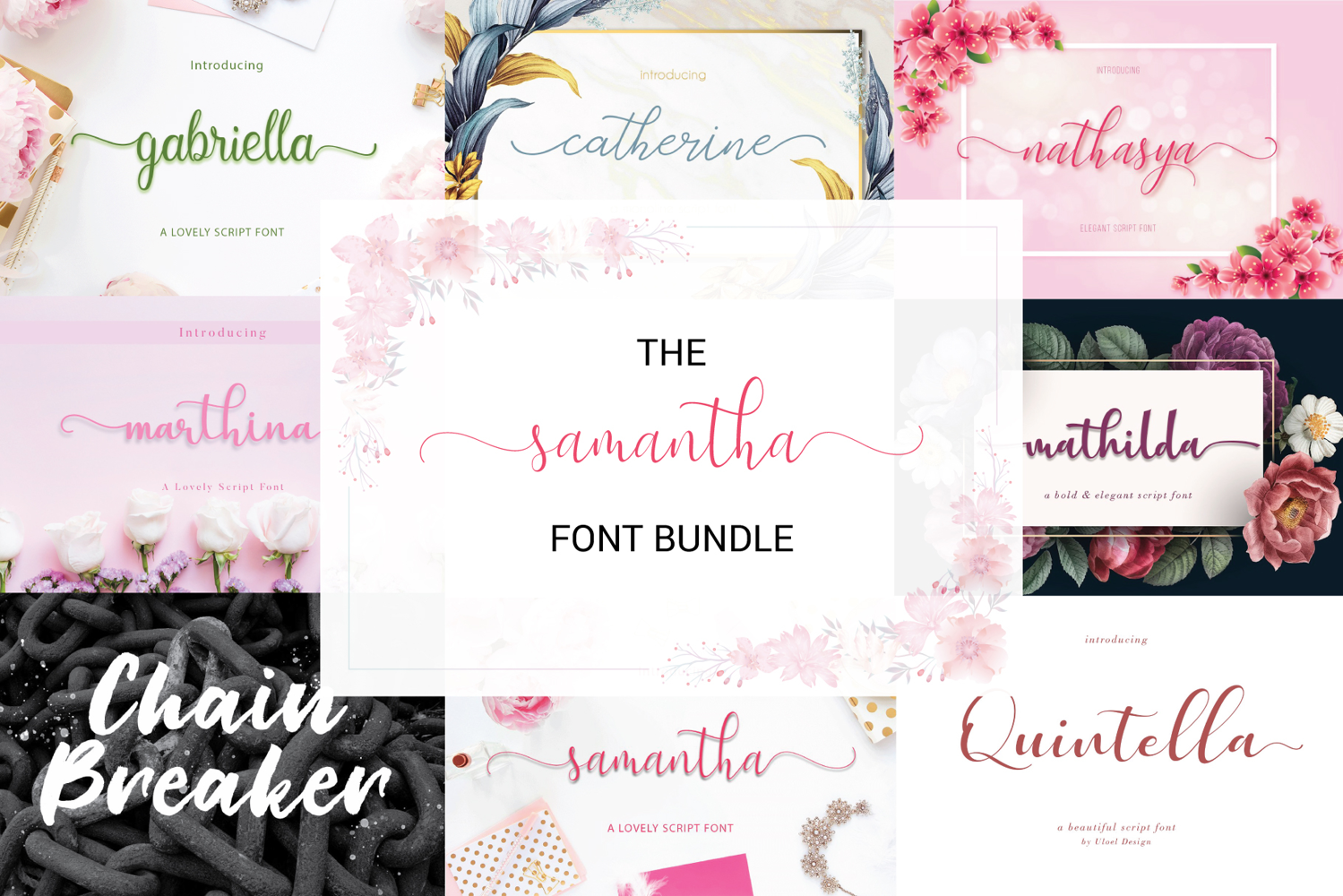
The Samantha Font Bundle
Introducing The Samantha Font Bundle!
I’m thrilled to present this exclusive Samantha Font Bundle — a stunning collection of beautiful, stylish script fonts designed to bring elegance and personality to your creative projects.
• Invitations & greeting cards
• Cricut & craft projects
• Branding & logos
• Posters, prints, and more!
Fonts included in this bundle:
1. Samantha
2. Gabriella
3. Marthina
4. Chain Breaker
5. Catherine
6. Nathasya
7. Mathilda
8. Quintella